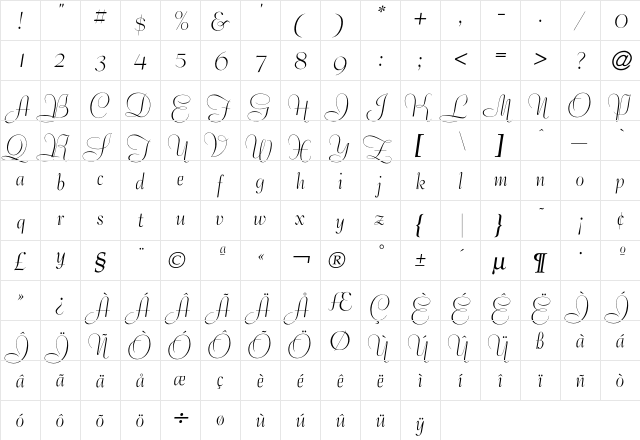
Bernhard TangoSwash
Design Context for Bernhard Typeface
Bernhard flows with the natural rhythm of handwritten lettering, making it ideal for designs that call for warmth and personal expression.
Font Pairing: Combine Bernhard with a simple geometric sans for maximum contrast — the tension between flowing curves and clean structure is a classic typographic pairing.
Pro Tip: Pair Bernhard with a clean sans-serif for supporting text. The contrast between fluid script and geometric structure creates an elegant typographic hierarchy.